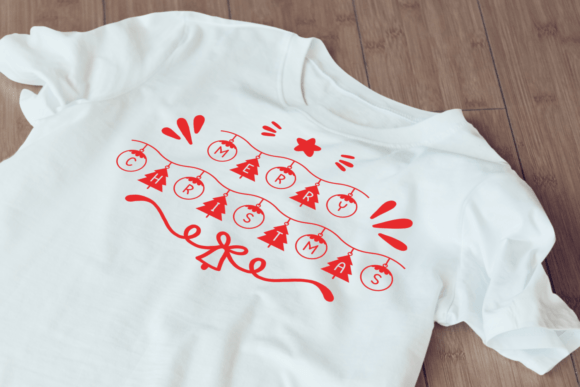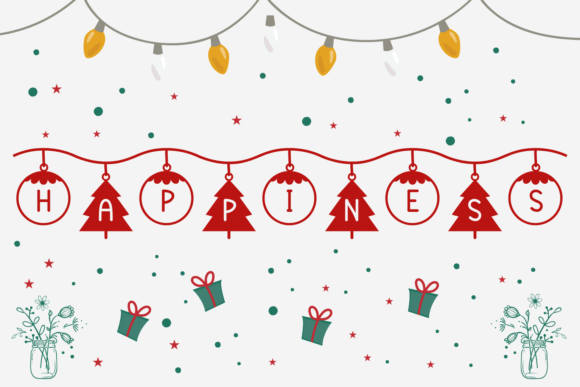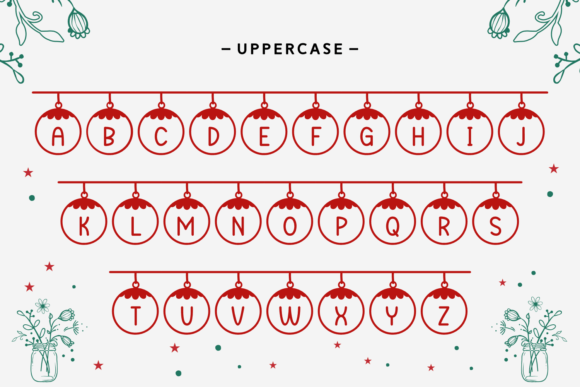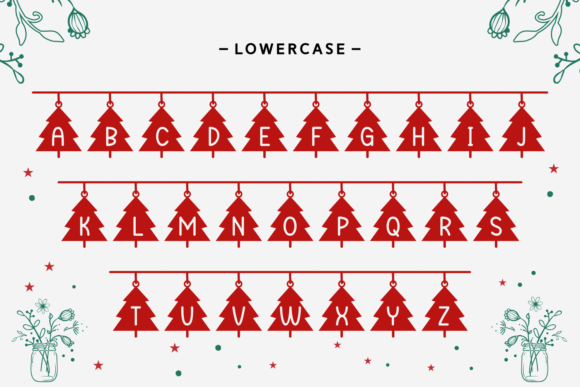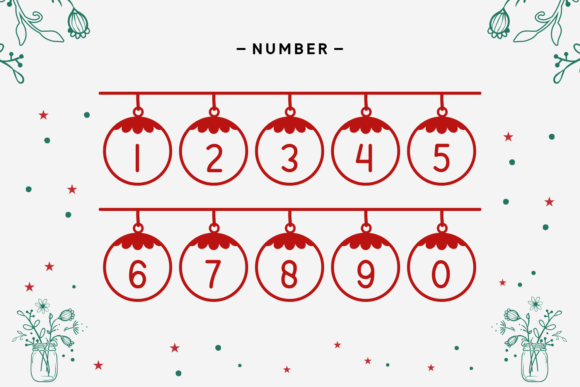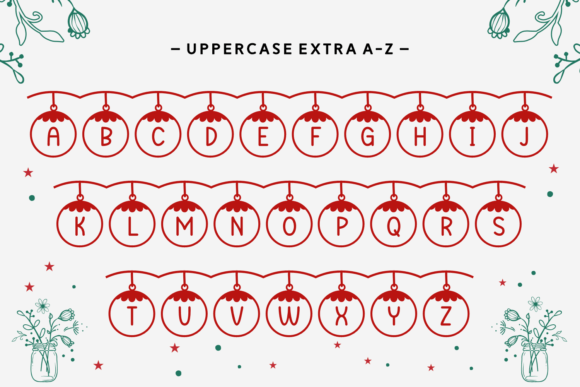
Spread Holiday Cheer with Joy Xmas Font
It’s that time of the year again – the festive season is upon us, and you’re bursting with creative ideas to make your Christmas projects shine. You’ve spent hours brainstorming, sketching, and refining your designs, but something’s still missing. That’s when you stumble upon the perfect solution: a font that embodies the essence of joy and festivity.
Meet Joy Xmas Font, a sweet, festive decorative font designed to add an extra layer of cheer to your holiday projects. With its adorable characters and playful style, this font is sure to impress any audience. Whether you’re designing greeting cards, gift tags, or social media posts, Joy Xmas Font is the perfect addition to your design toolkit.
As a designer, you understand the importance of the right font in elevating your work. Joy Xmas Font is a valuable asset in your design arsenal, allowing you to create visually appealing and engaging holiday content that resonates with your audience. So why settle for ordinary when you can spread joy with Joy Xmas Font?
Key Features of Joy Xmas Font
- Font Style: A festive and cheerful Christmas font, perfect for holiday-themed designs.
- Unique Characteristics: Features a playful, handwritten feel with intricate details and ornaments, adding a touch of whimsy to designs.
Review of Joy Xmas Font
Overall, I think the Joy Xmas Font is a nice addition to any holiday design project. ✨ It’s cheerful and fun, which makes it perfect for Christmas-themed designs. The font is highly customizable, allowing you to adjust the size, color, and style to fit your project’s needs.
- Fun and cheerful design
- Perfect for Christmas-themed designs
- Easy to use in various design projects
One thing to keep in mind is that the Joy Xmas Font may not be the best choice for more serious or professional designs. ⚠️ It’s a bit too playful and festive, which may not be suitable for all projects. Additionally, the font may not be as versatile as other fonts, and its design may not work well in certain contexts.
- May not be suitable for serious or professional designs
- May not be as versatile as other fonts
- Design may not work well in certain contexts
Overall, I would recommend the Joy Xmas Font for holiday-themed designs, but it may not be the best choice for all projects. With some careful consideration and customization, it can be a great addition to your design toolkit.
The “Joy Xmas Font” is perfect for creating festive holiday graphics, such as:
Gift tags and cards
Invitations and party decorations
Posters and flyers
Illustrations and artwork
Reports and presentations